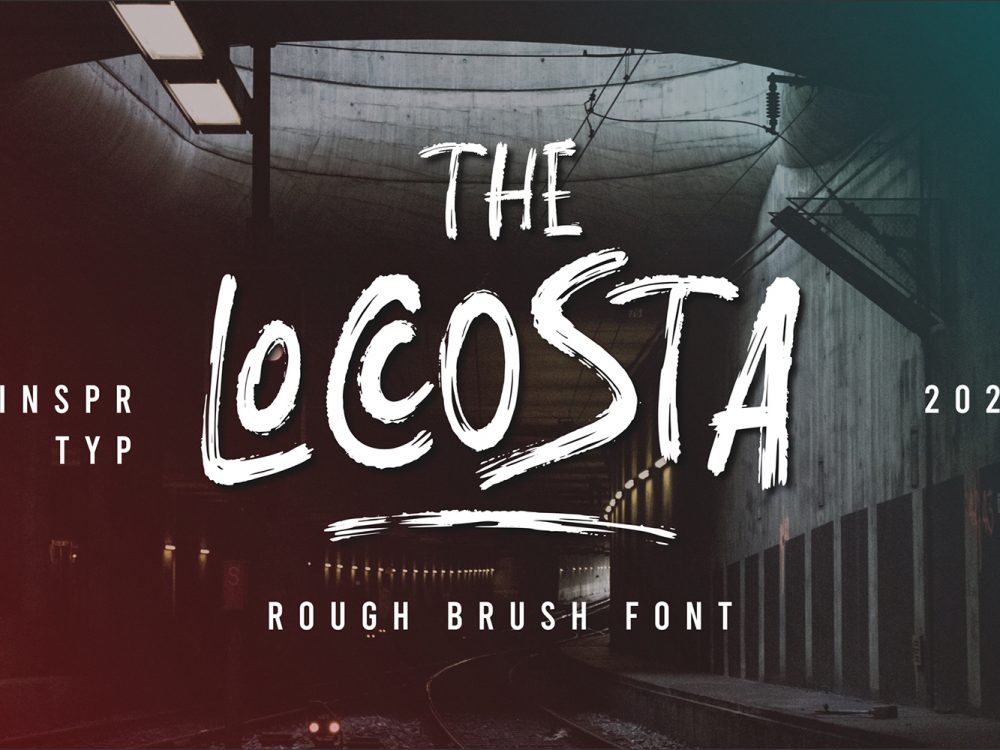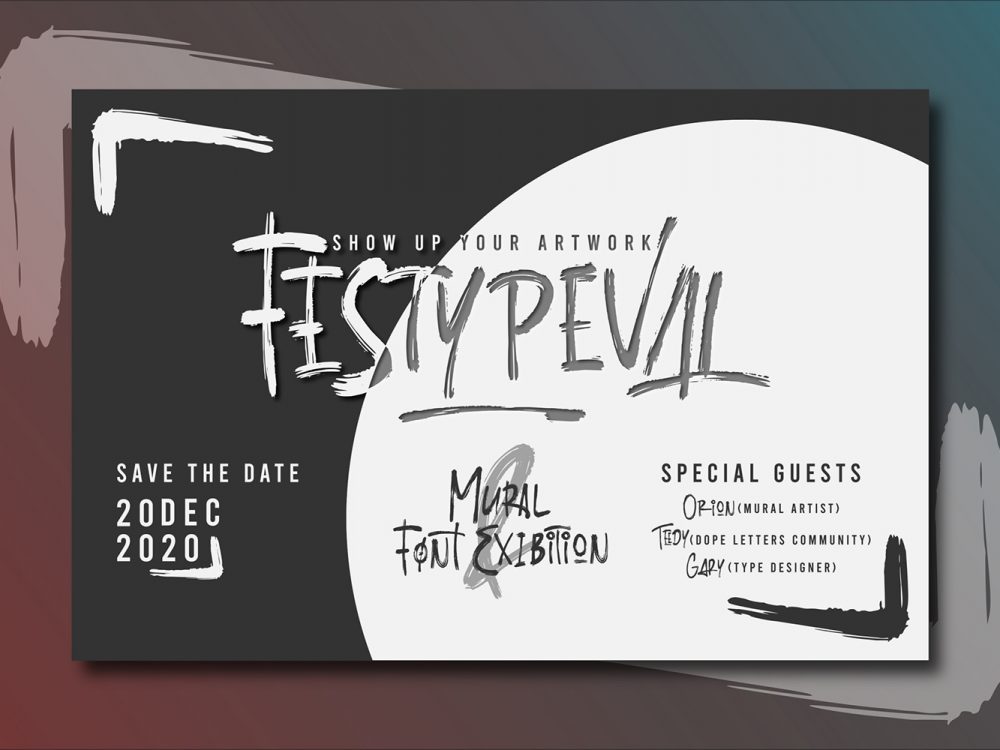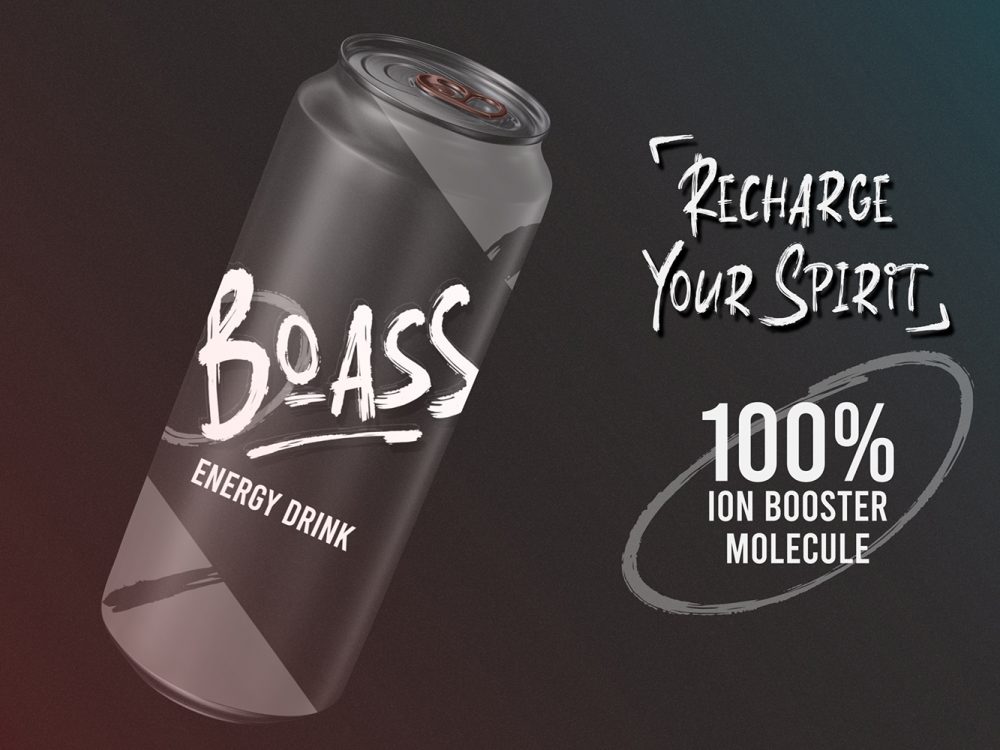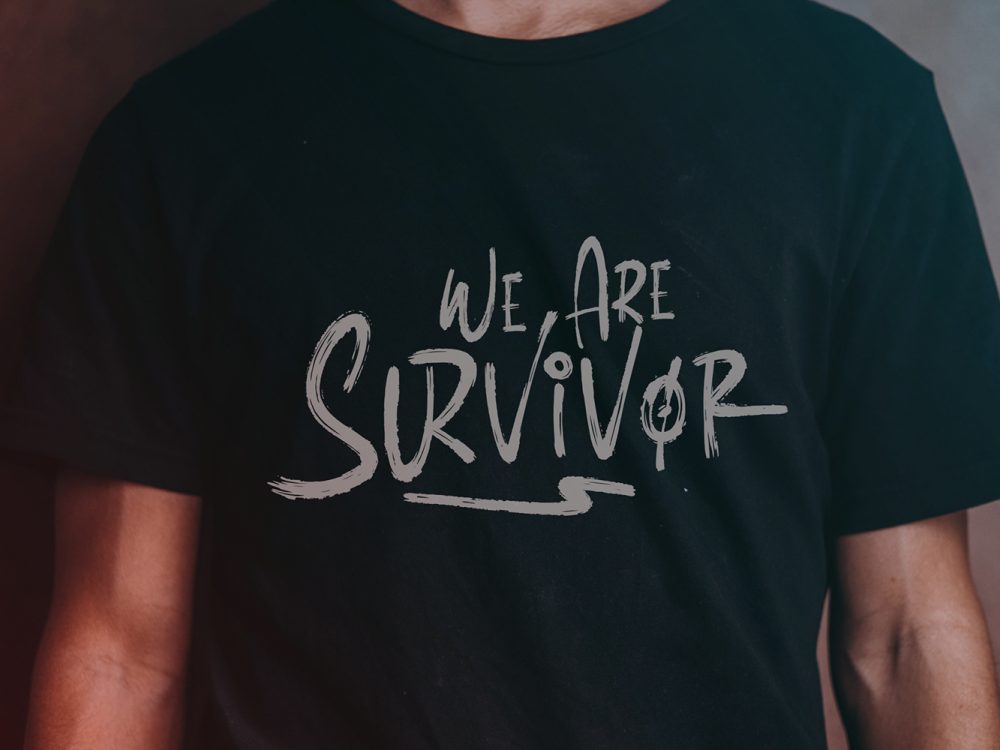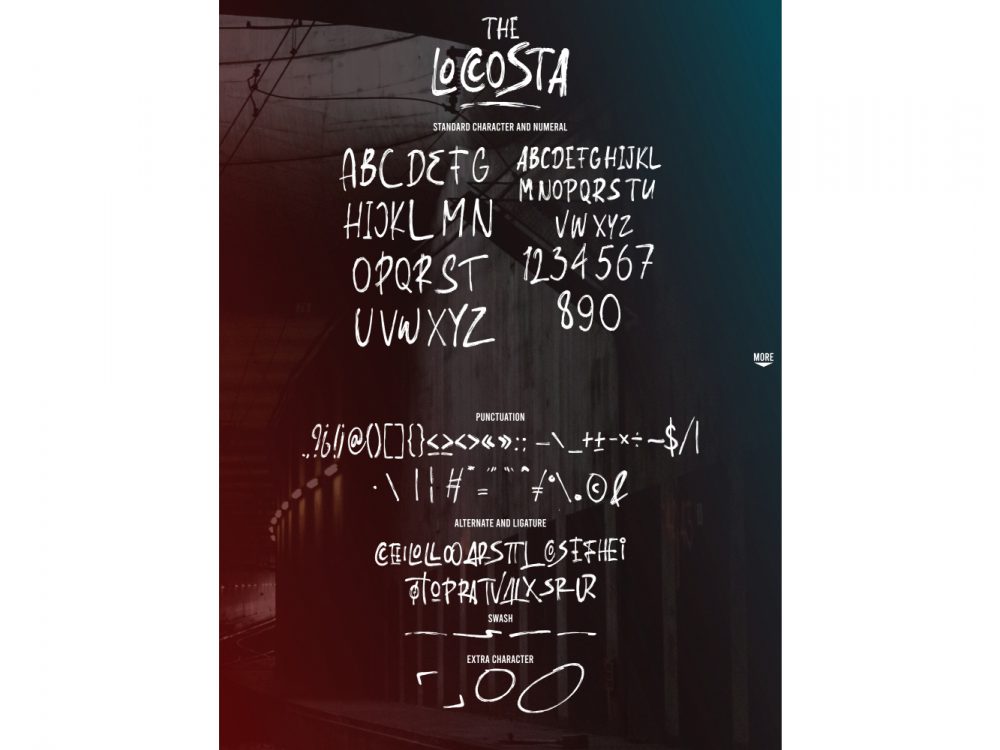
The Loccosta Free Font
The Loccosta Free Font is an interesting handwritten font that mimics brush writing and has a modern style. This font is very suitable for a variety of design projects that require a quality scripting font. You can use this font to create memorable romantic posters, wedding invitations, greeting cards, branding, flyers, t-shirt and pillow prints, and more. If you like it don’t forget to check out the full version.